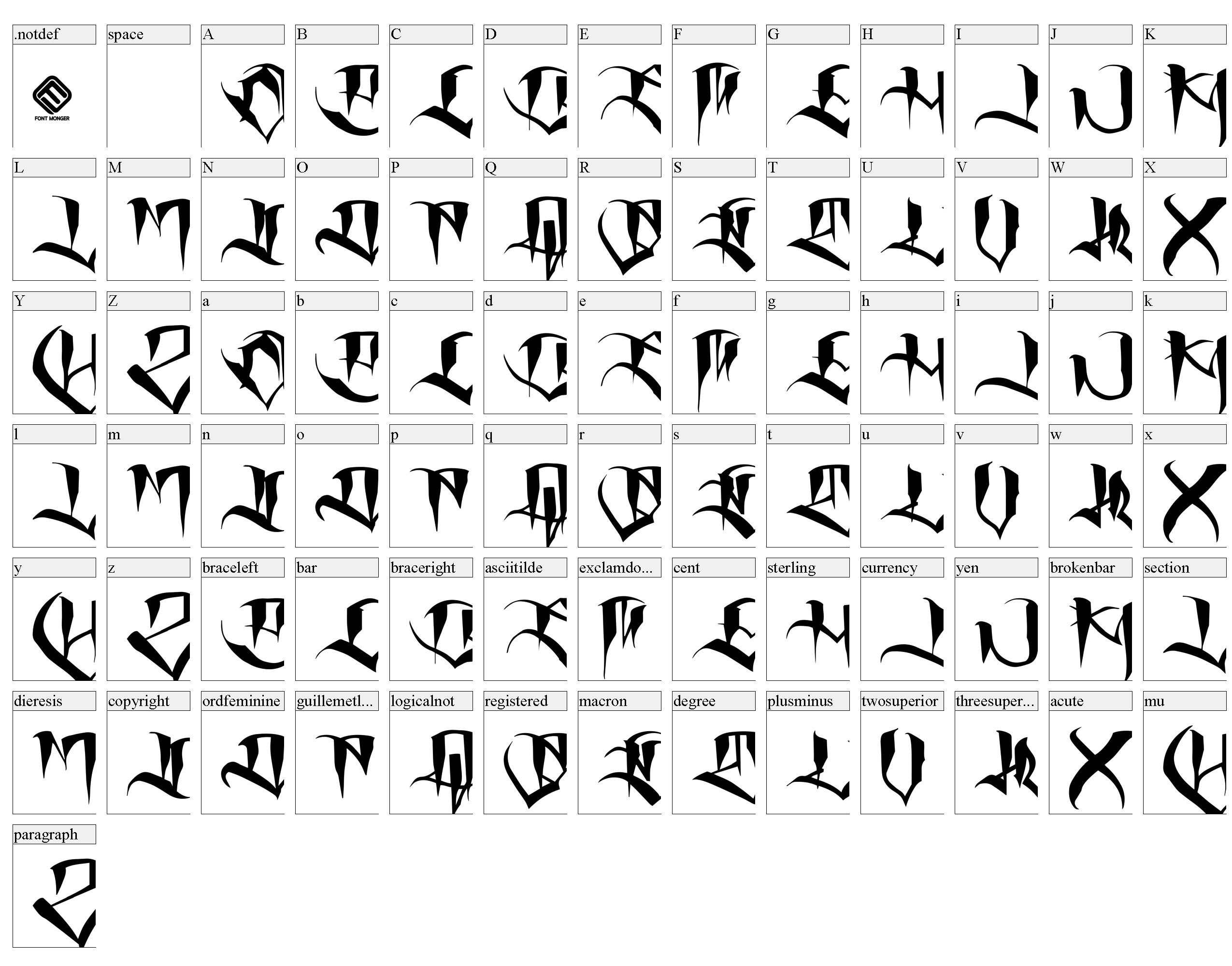
Saviors is a sharp graffiti style font that exudes a rebellious and energetic vibe. Its edgy, angular lines give it a sense of urgency and its bold, aggressive letterforms demand attention. The letters in Saviors appear to be sliced or slashed, adding to its dynamic and gritty feel. This font is perfect for designs that require a strong, urban-inspired look, such as posters, album covers, or apparel.
Lowercase: Same as uppercase
Numbers: No
Punctuation: No
Symbols: No
Accents: No
Style: Graffiti